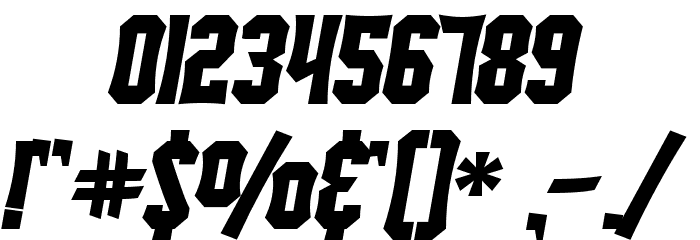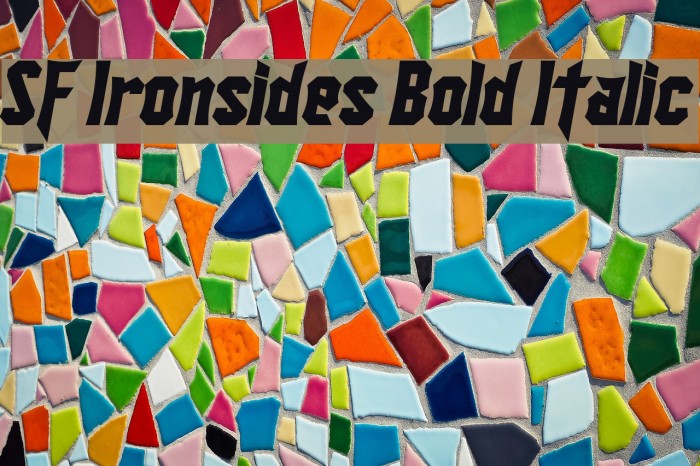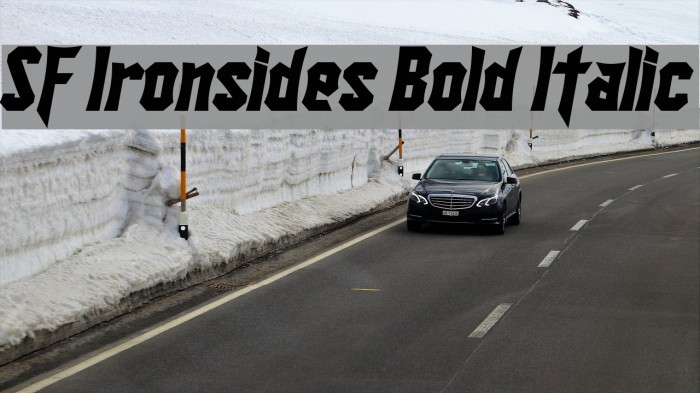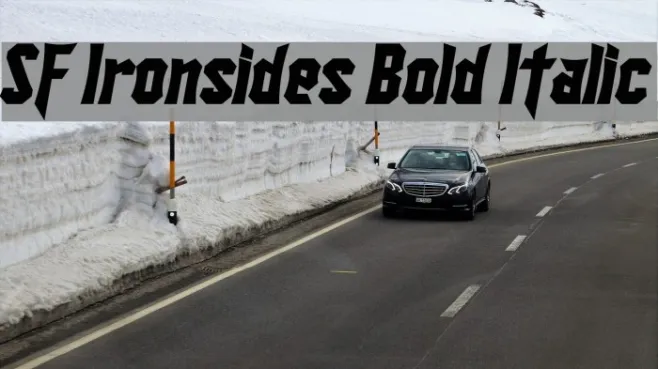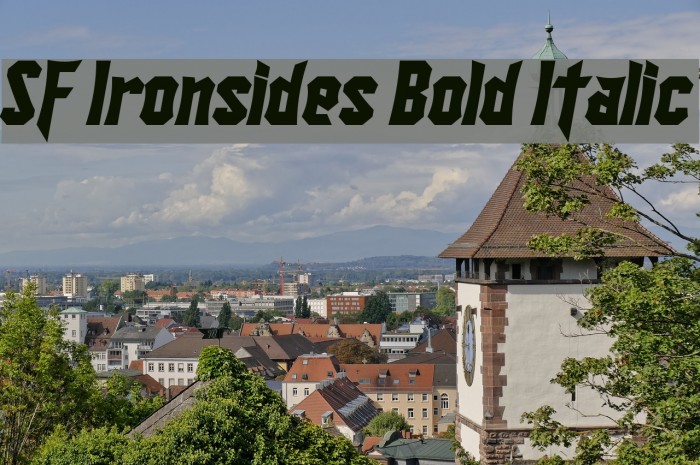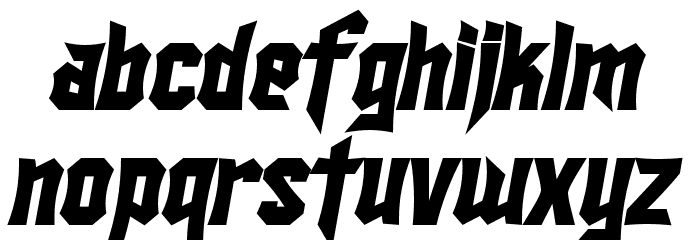
SF Ironsides Bold Italic Font
SF Ironsides Bold Italic Description
This bold and italicized font features a striking, angular design with sharp edges and a dynamic slant, giving it a sense of movement and energy. The uppercase and lowercase letters maintain a consistent style, with exaggerated serifs and a bold presence that commands attention. The numbers and special characters are equally bold and angular, fitting seamlessly with the overall aesthetic. This font's unique style makes it ideal for projects that require a strong, impactful visual statement.